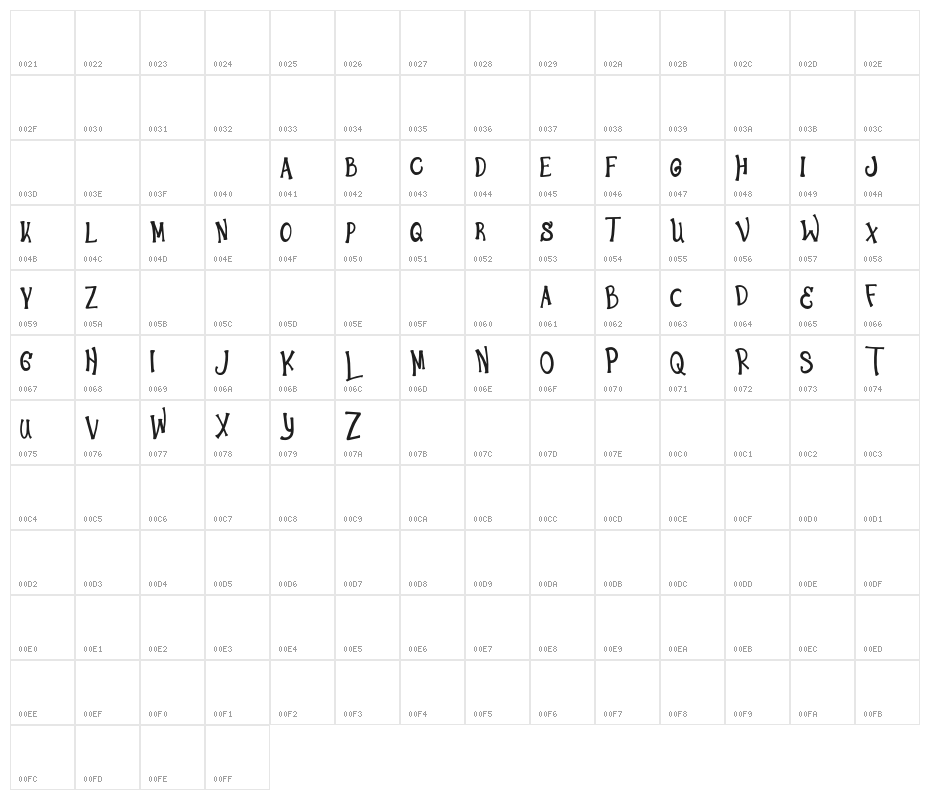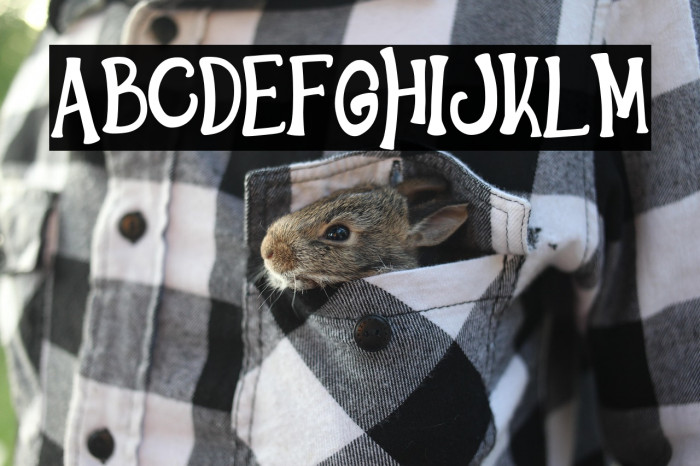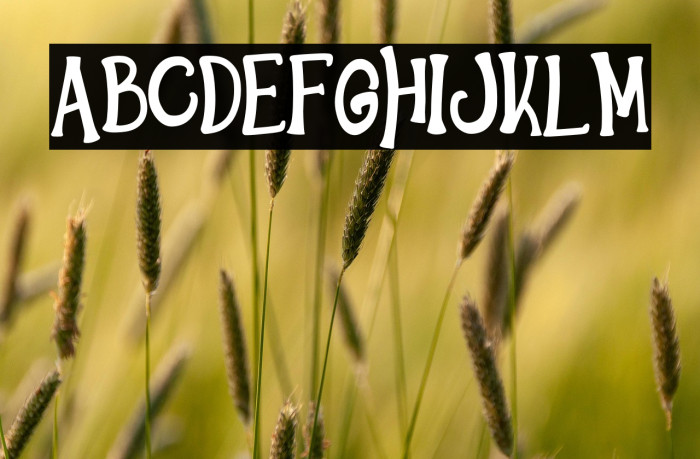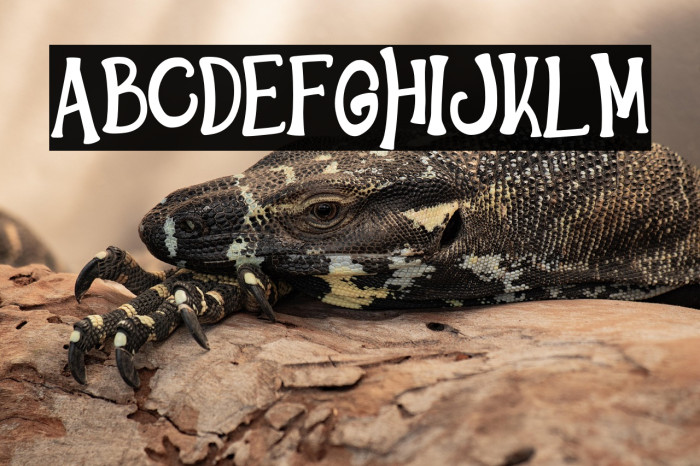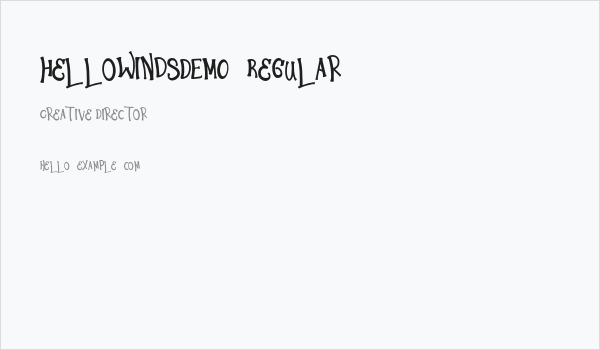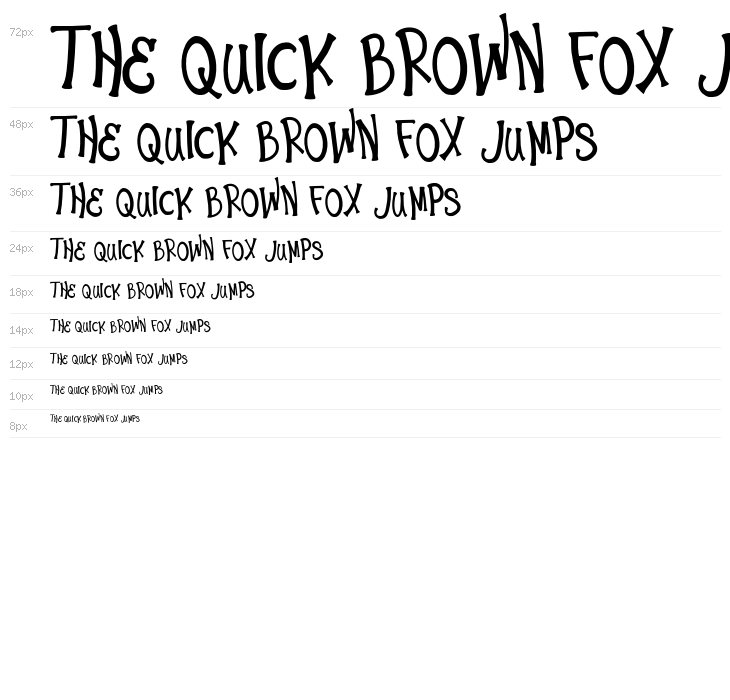
HelloWindsDEMO-Regular Font
| Stile generale | Whimsical, Playful, Hand-drawn |
| Caso d'uso | Headlines, Logos, Creative projects |
| Progetti proposti | Ideal for children's books, playful branding, greeting cards, and creative posters. |